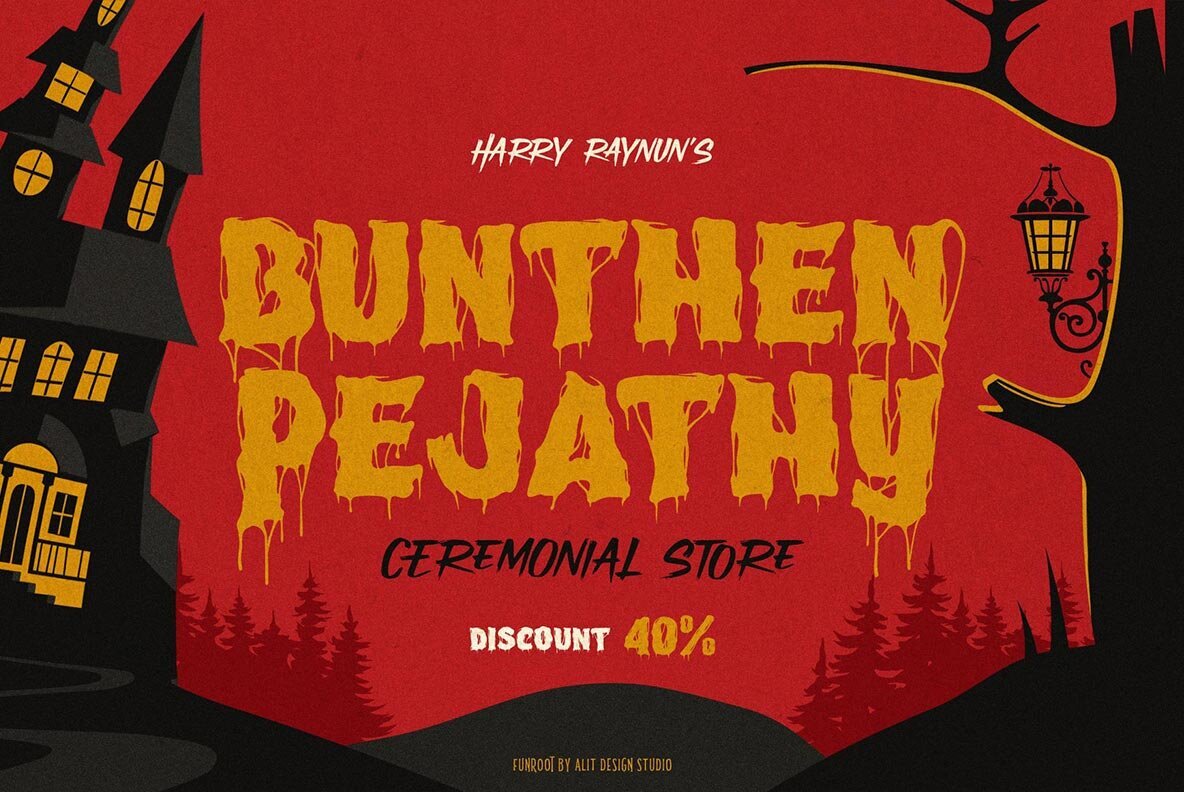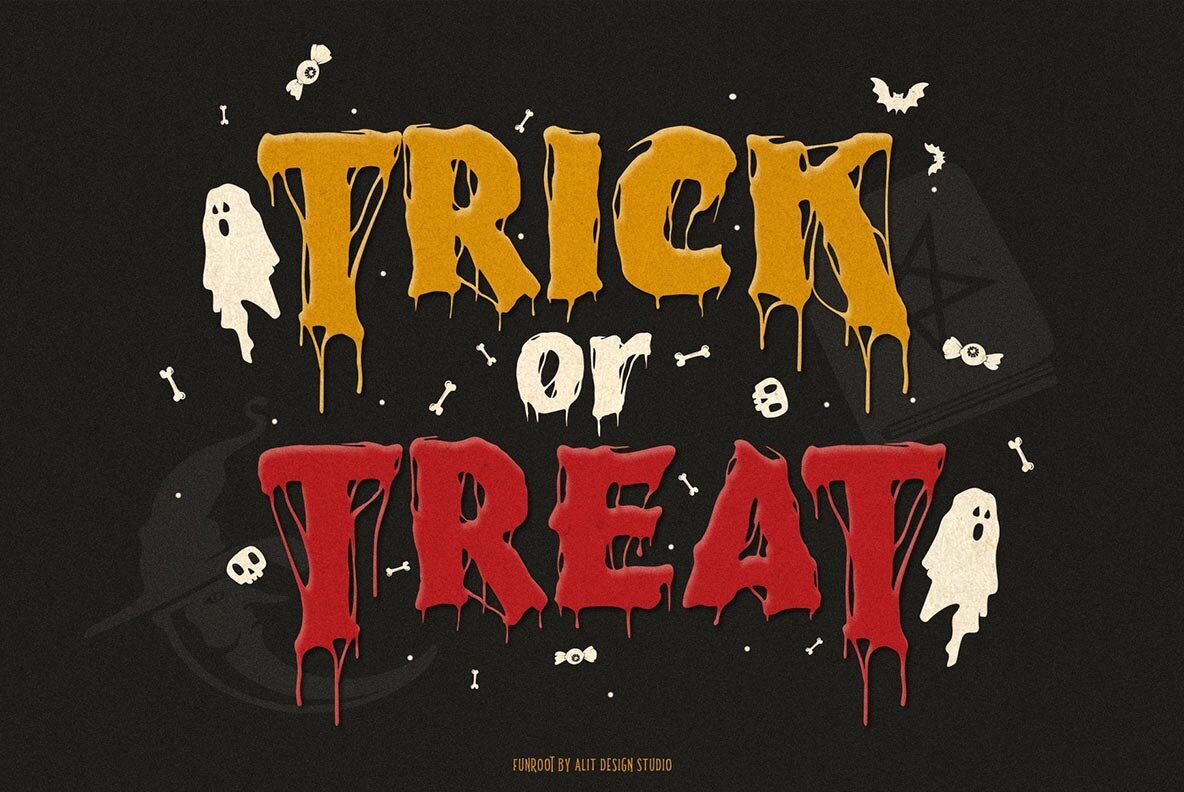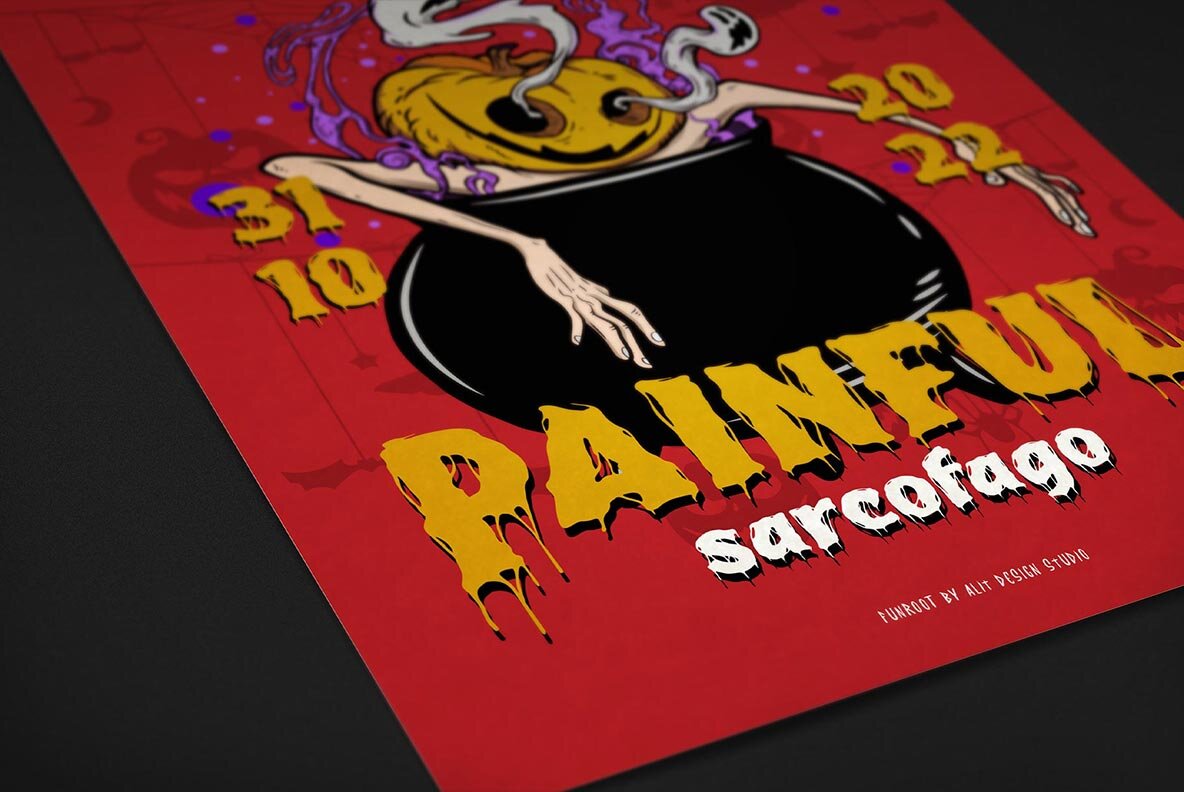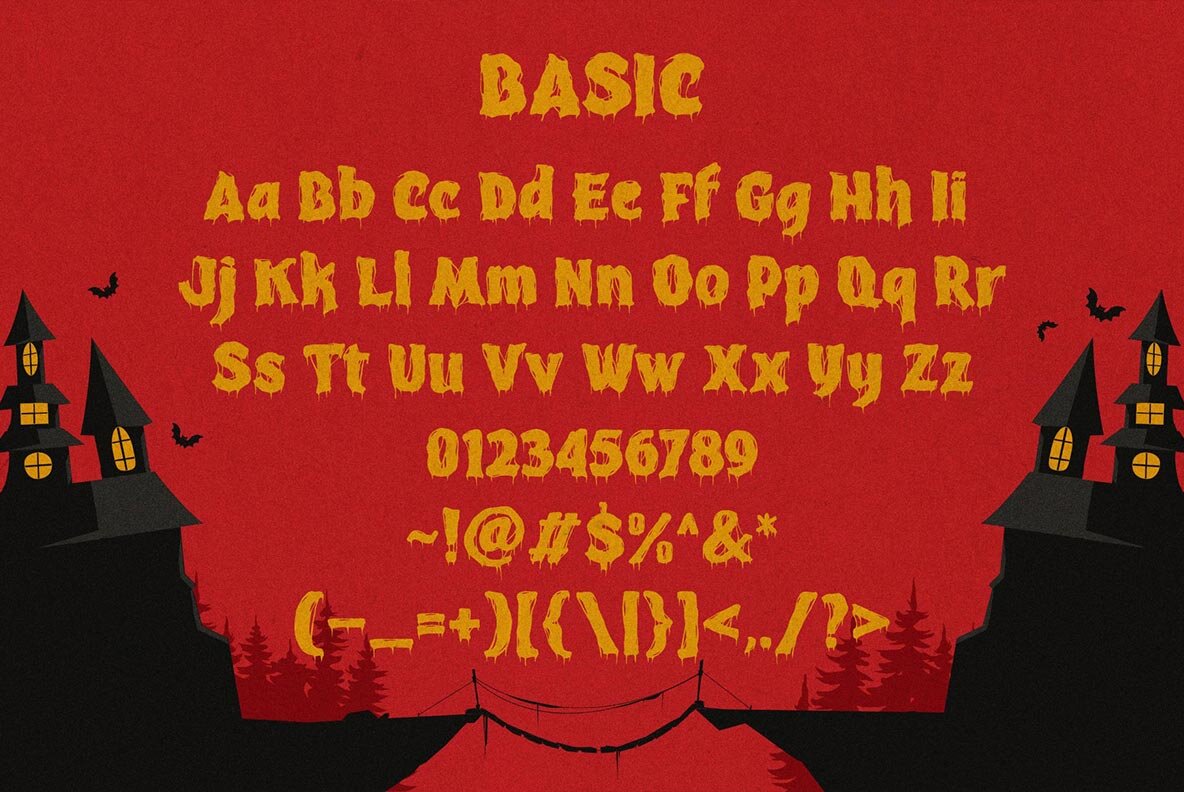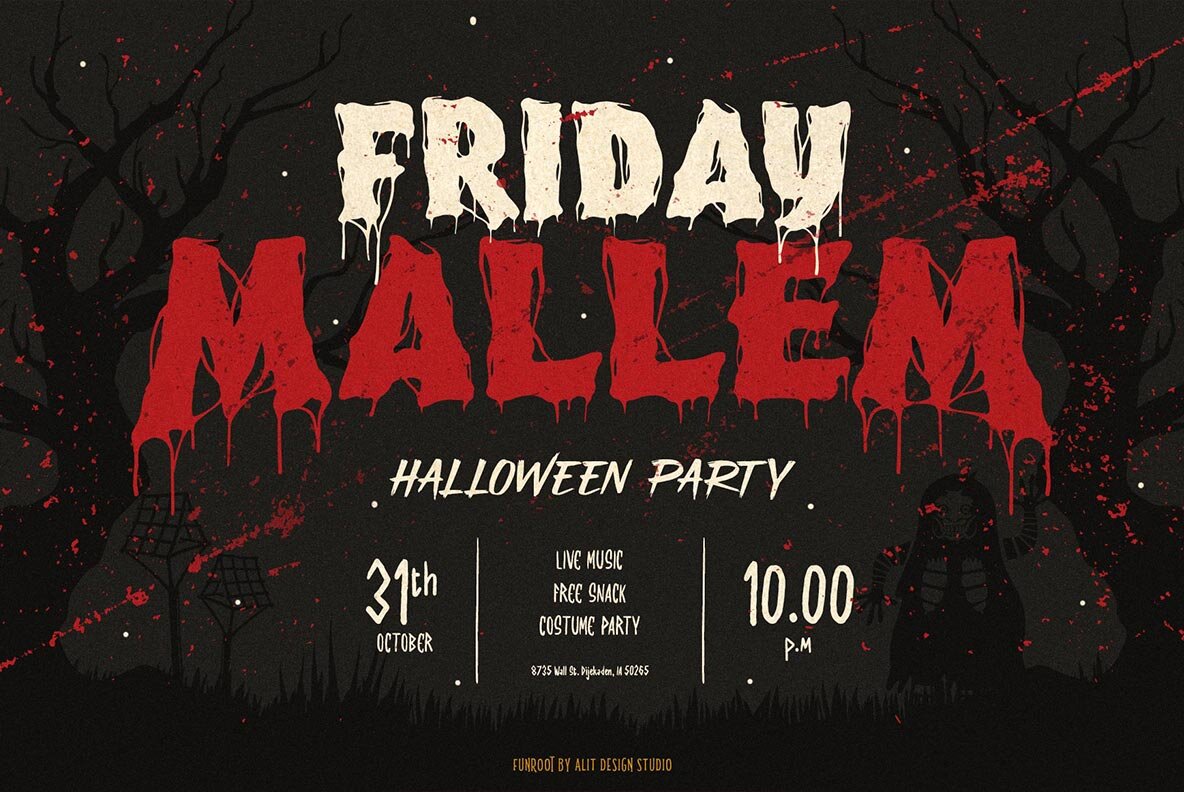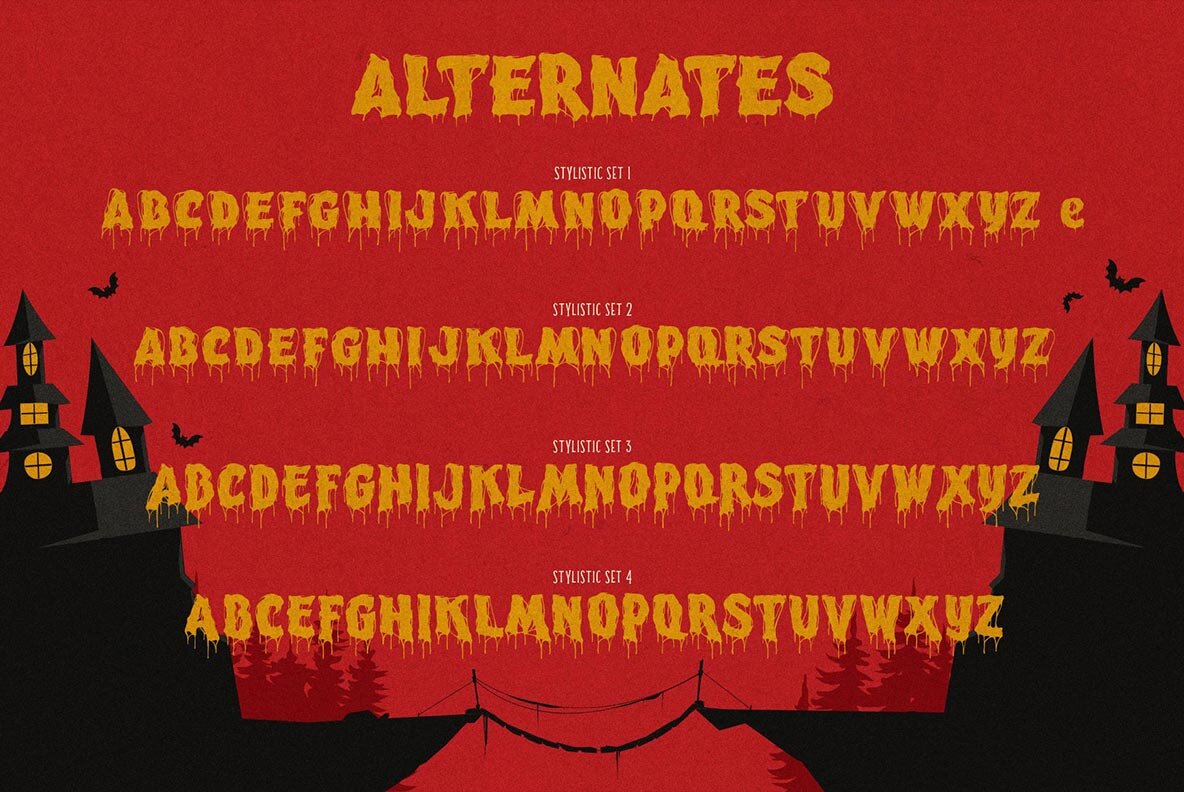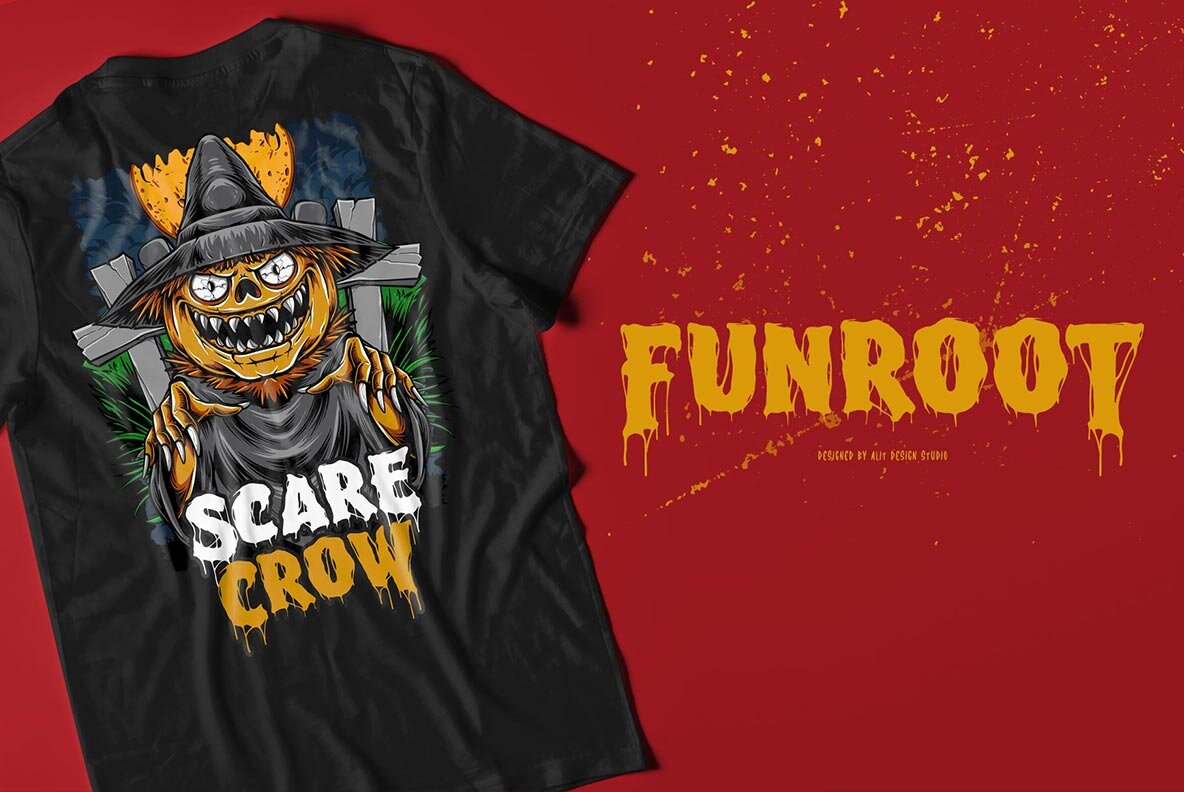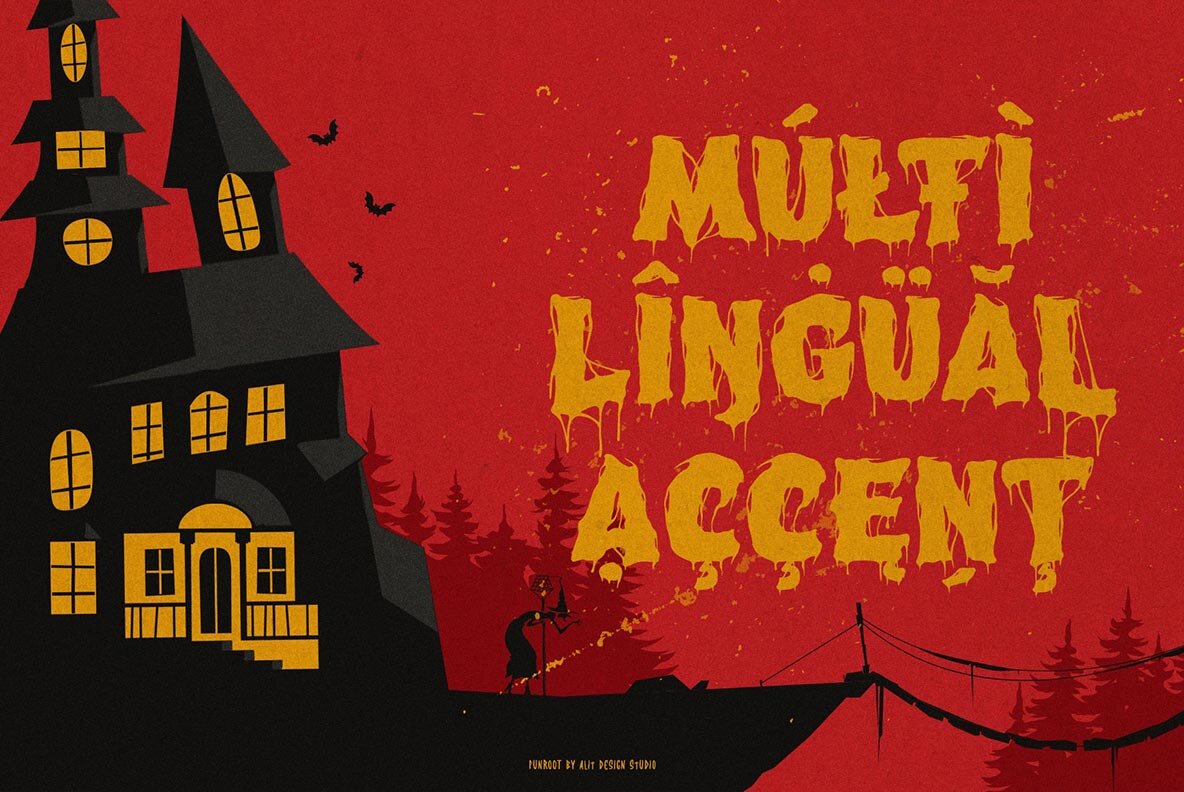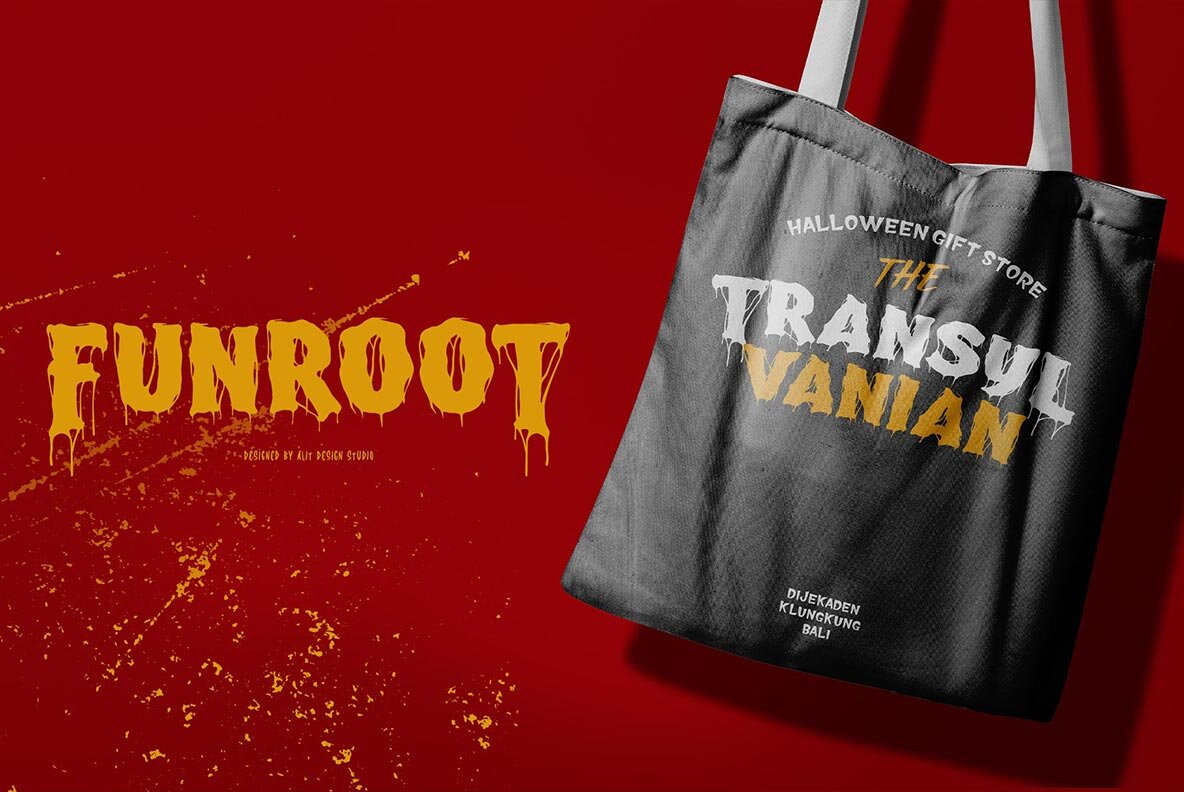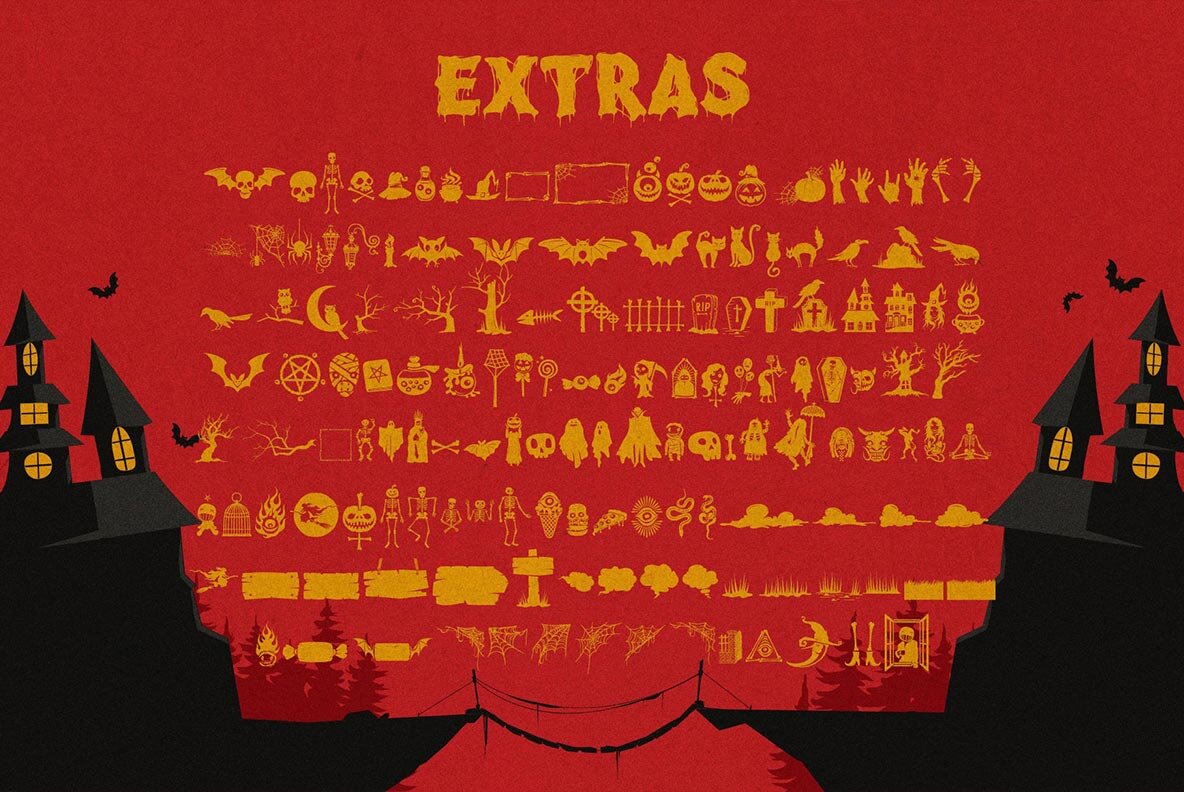
Funroot: Playful Spirits in Typography
Capture the whimsical essence of Halloween with the Funroot typeface, designed by Alit Suarnegara. This playful font injects a sense of enchantment into your creative projects. Ideal for holiday-themed graphics, children's apparel, and captivating invitations. Funroot distinguishes itself with quirky letterforms that evoke the mischievous spirit of October magic.
• Lively Design – Adds a touch of festive playfulness to any project.
• Unique Letterforms – Ensures each character stands out.
• Versatile Use – Perfect for posters, invitations, and more.